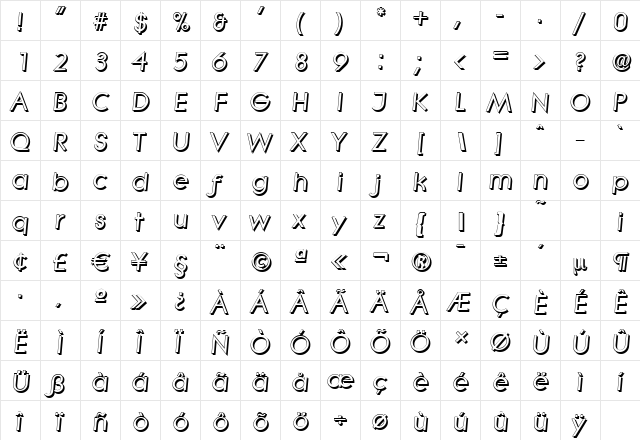
LiteraShadow BoldItalic
Design Context for LiteraShadow Typeface
LiteraShadow brings ornamental detail and strong personality to headlines and identities, where visual impact matters more than quiet functionality. The slanted form adds forward momentum and visual energy. Its bold stroke weight gives it real presence on the page.
Font Pairing: Pair with a clean neutral sans-serif for body copy to let LiteraShadow's character lead without overwhelming the composition.
Pro Tip: Use LiteraShadow exclusively at display sizes — it was designed to be seen, not read at length. Let a neutral companion handle body copy.